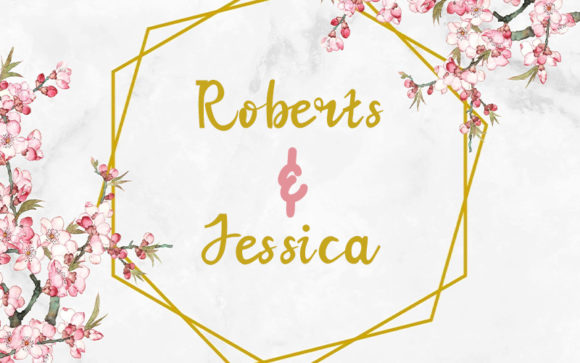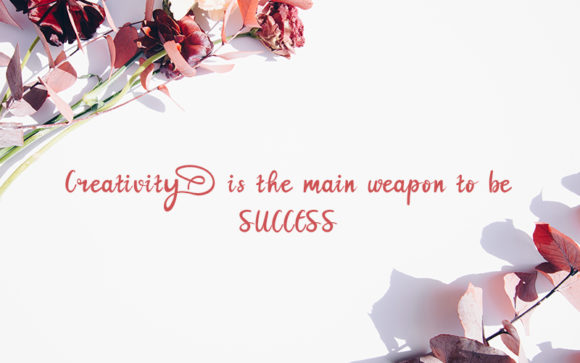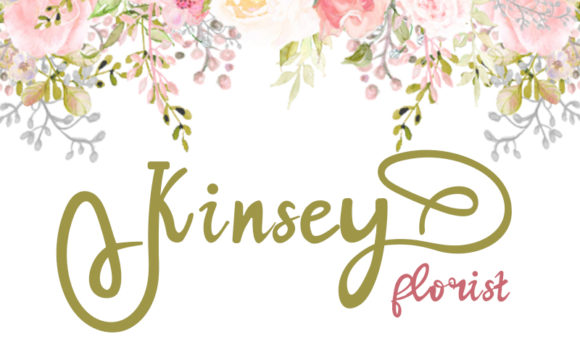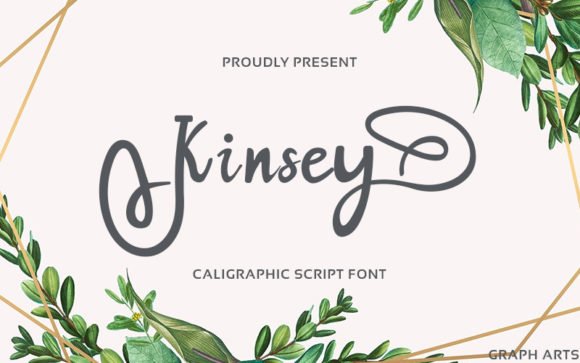
Introduction to Kinsey Font
Kinsey is a sweet, soft hand-lettered handwritten font.
Fall in love with its authentic feel and use it to create gorgeous wedding invitations, beautiful stationary art, eye-catching social media posts, and cute greeting cards .